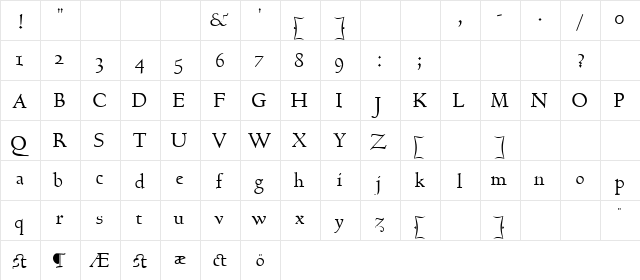
Goundy Regular
Design Context for Goundy Typeface
Goundy is a composed and adaptable typeface that performs quietly and consistently across a wide range of design contexts.